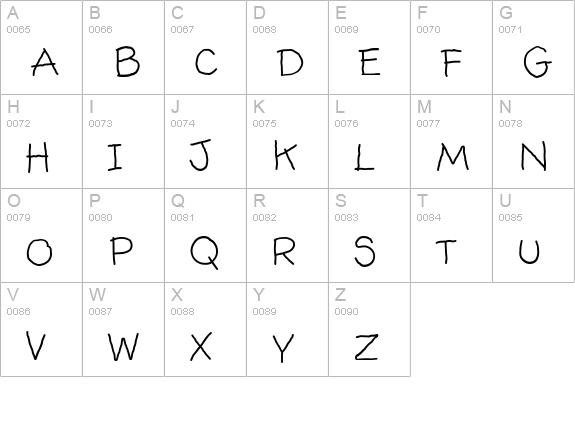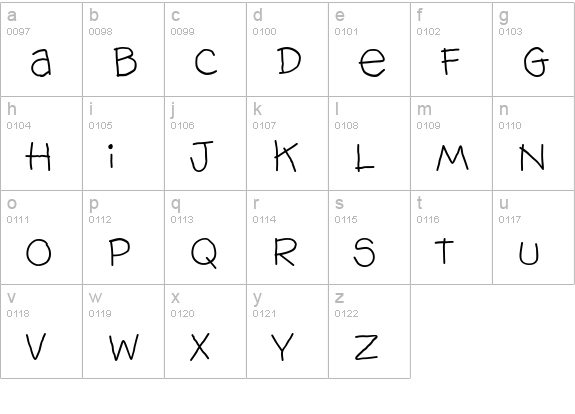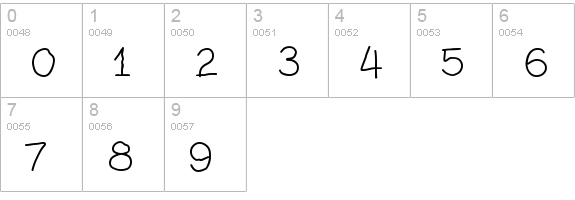
WallowHmk Font Details
Introducing WallowHmk font, a captivating and versatile typeface that effortlessly blends contemporary design with timeless elegance. Crafted with meticulous attention to detail, this font is bound to leave a lasting impression on any project it graces. WallowHmk font boasts a stunning array of characters, each meticulously crafted to ensure readability and visual appeal. With its clean lines and balanced proportions, this font is suitable for a wide range of design applications, from logos and branding to promotional materials, websites, and more. What sets WallowHmk font apart is not just its impeccable design, but also its commitment to accessibility. This font is freely available to download at FontsMarket.com, allowing designers and creatives of all backgrounds to access its beauty without any financial burden. It is a font that truly believes in the power of inclusivity, eliminating barriers and ensuring that everyone has the opportunity to create stunning designs. Whether you're a seasoned designer looking to add a touch of sophistication to your next project or a beginner eager to experiment with typography, WallowHmk font is here to inspire and empower you. With its seamless integration into various design software and its wide range of weights and styles, this font offers endless creative possibilities. So why wait? Download WallowHmk font today from FontsMarket.com and unlock the true potential of your designs. Experience the freedom of creativity, knowing that this exceptional font is just a few clicks away. Let WallowHmk font be your trusted companion, guiding you towards design excellence and captivating your audience with its timeless charm.